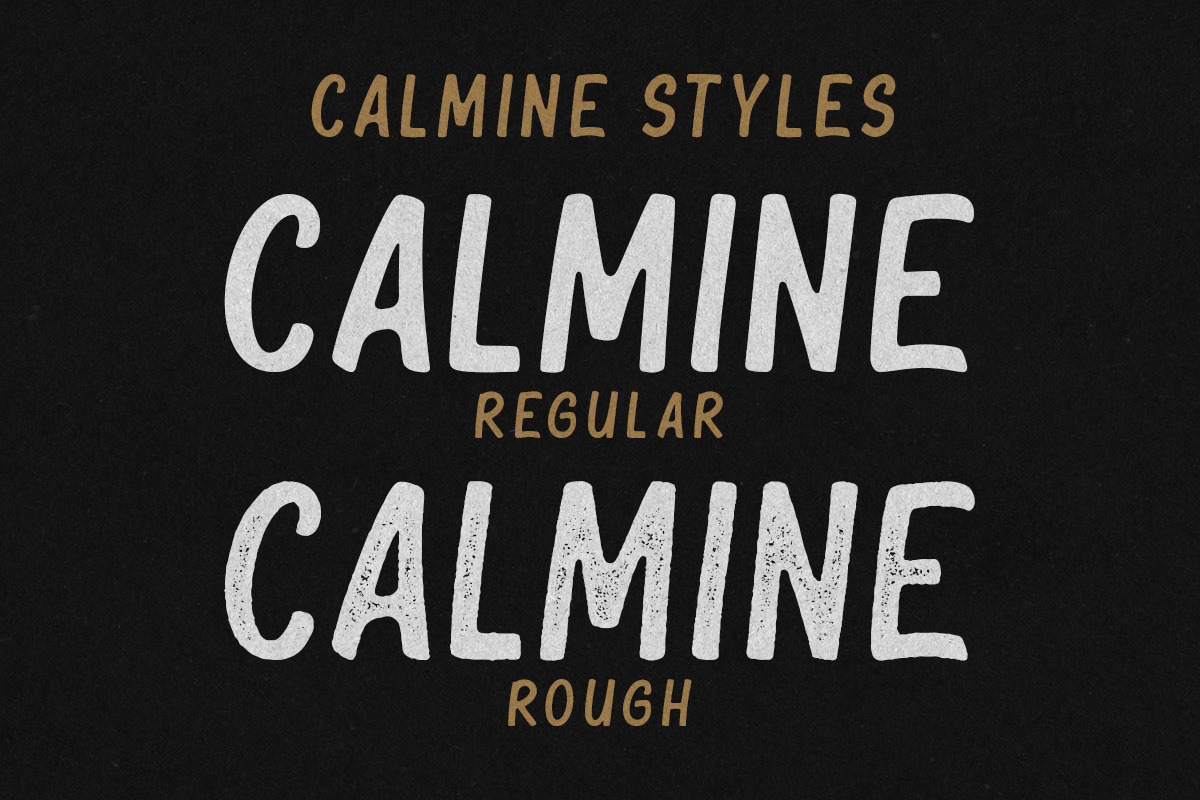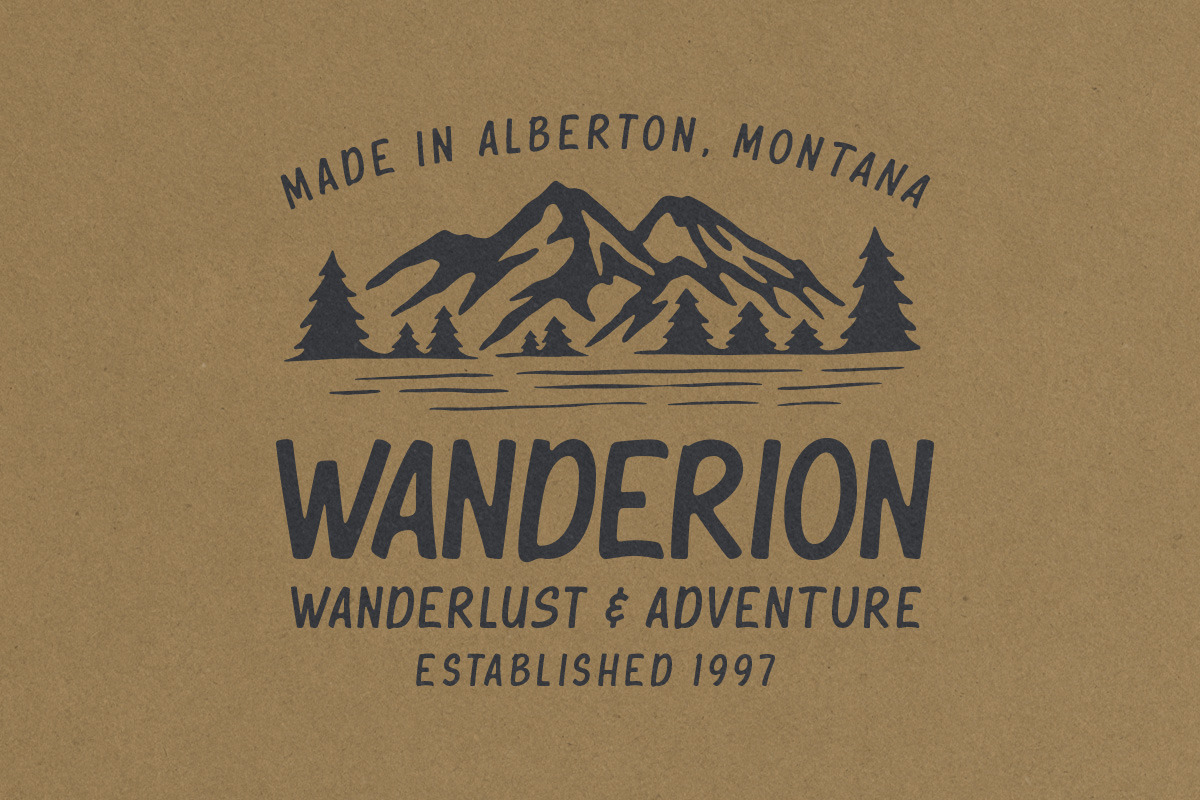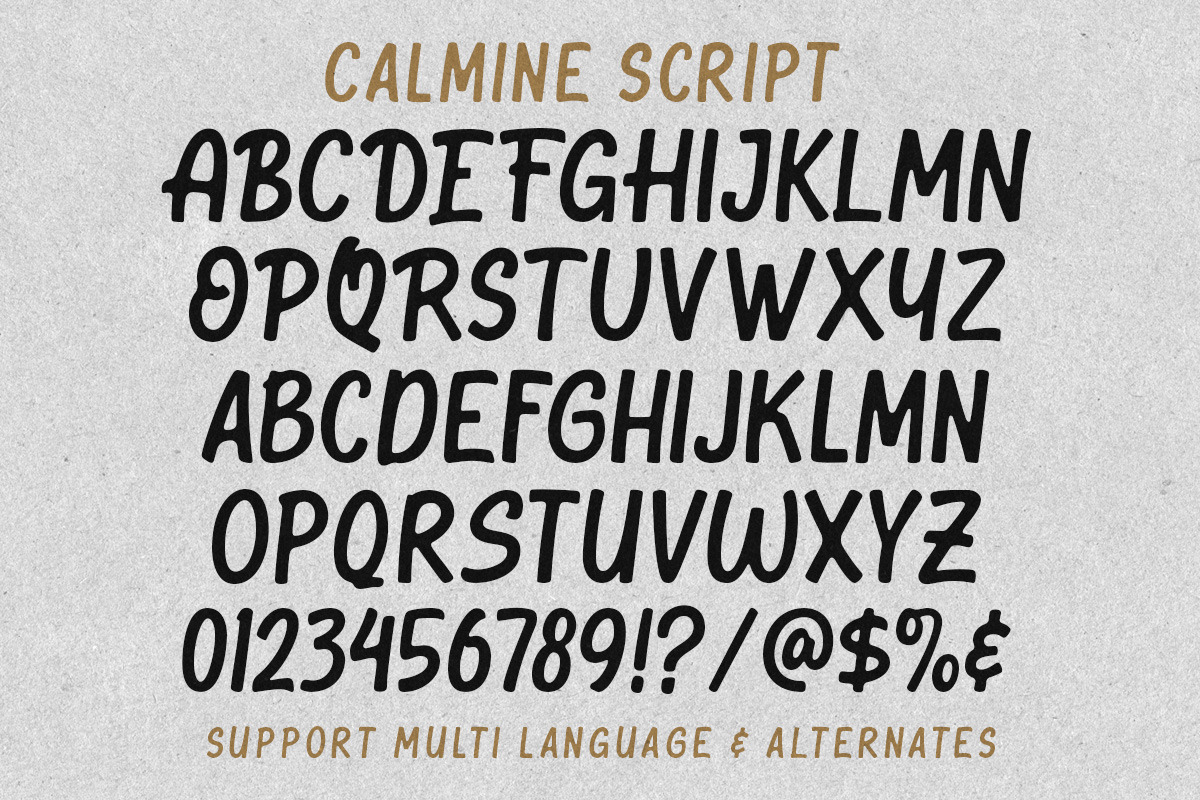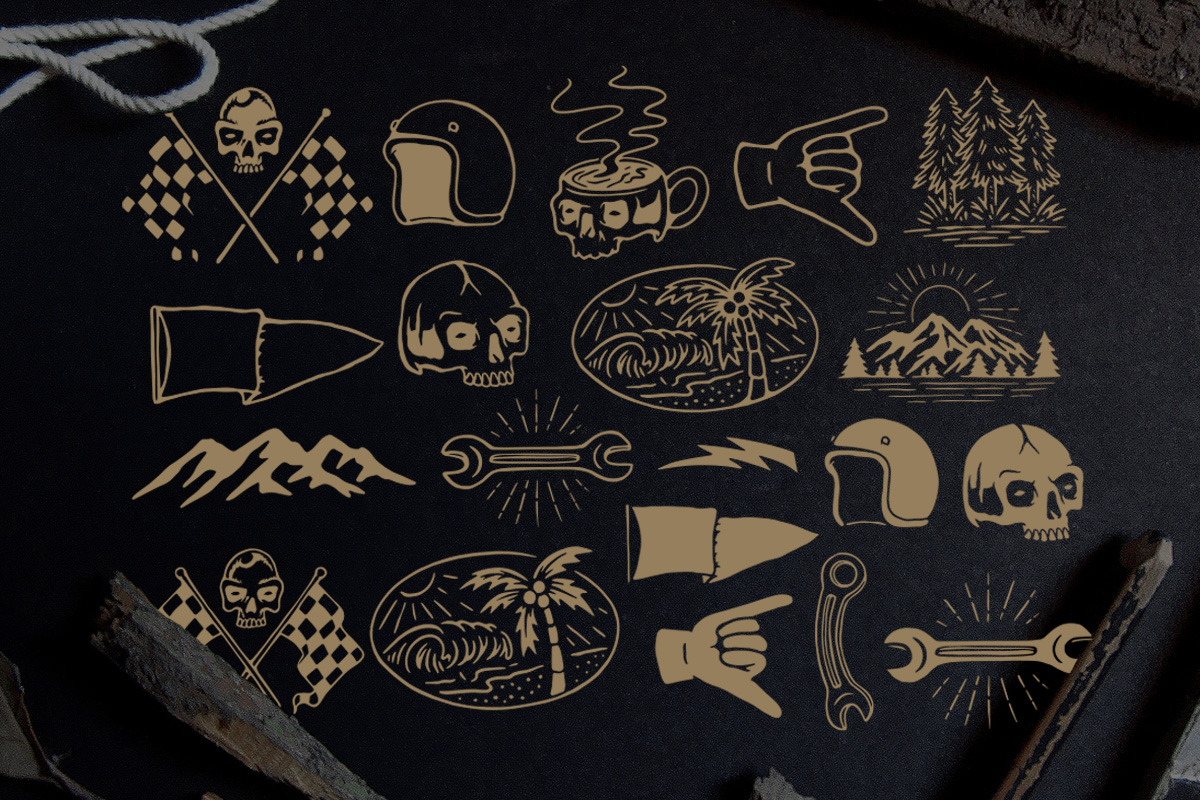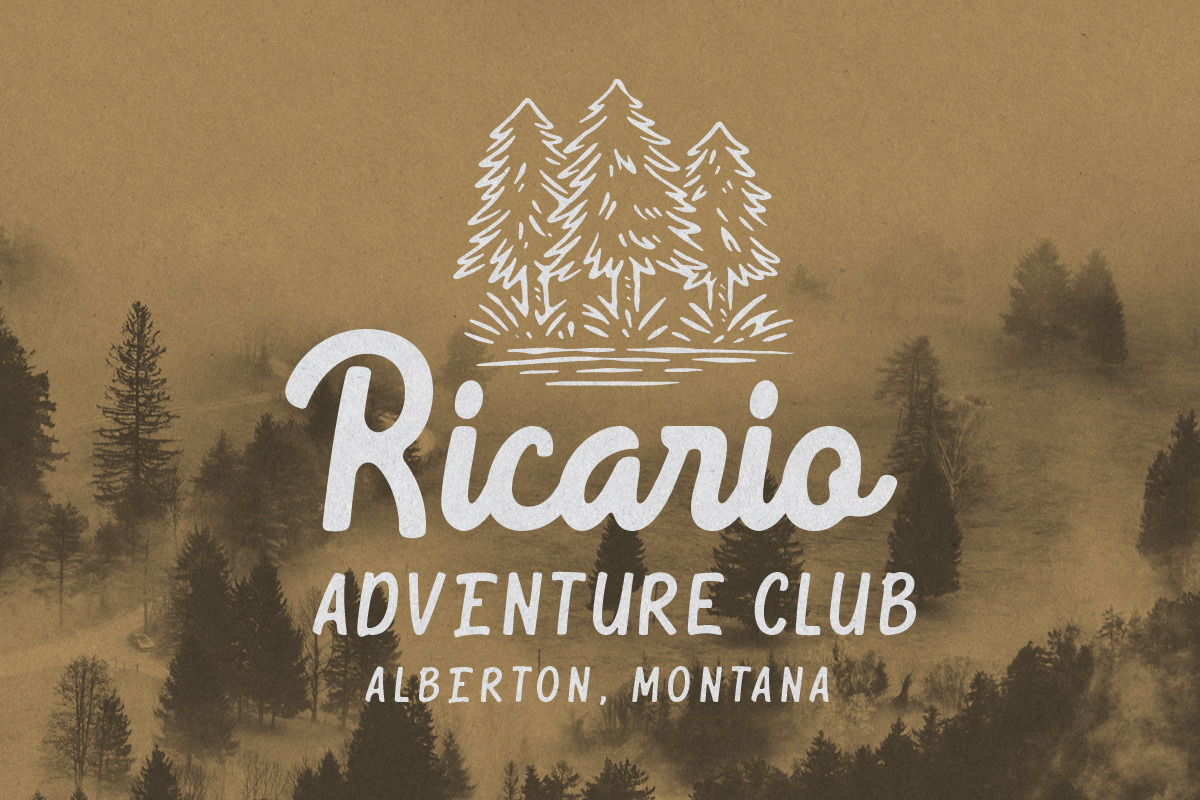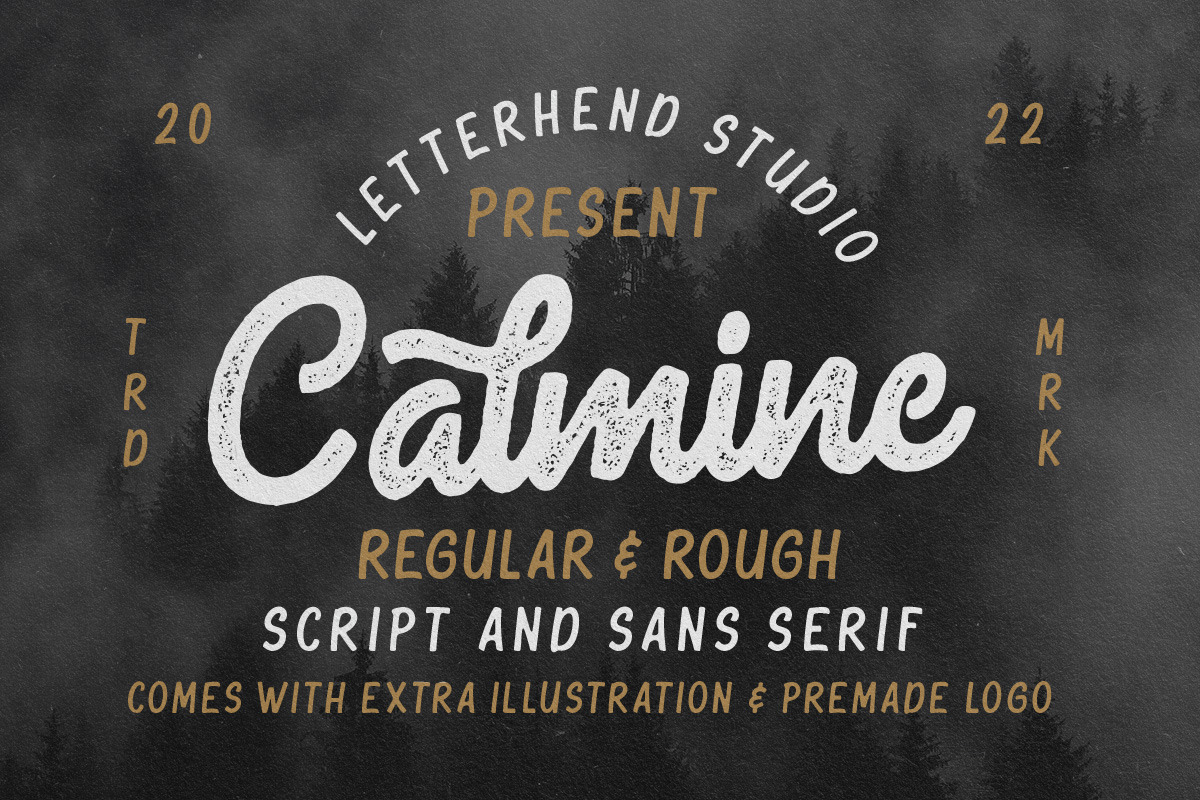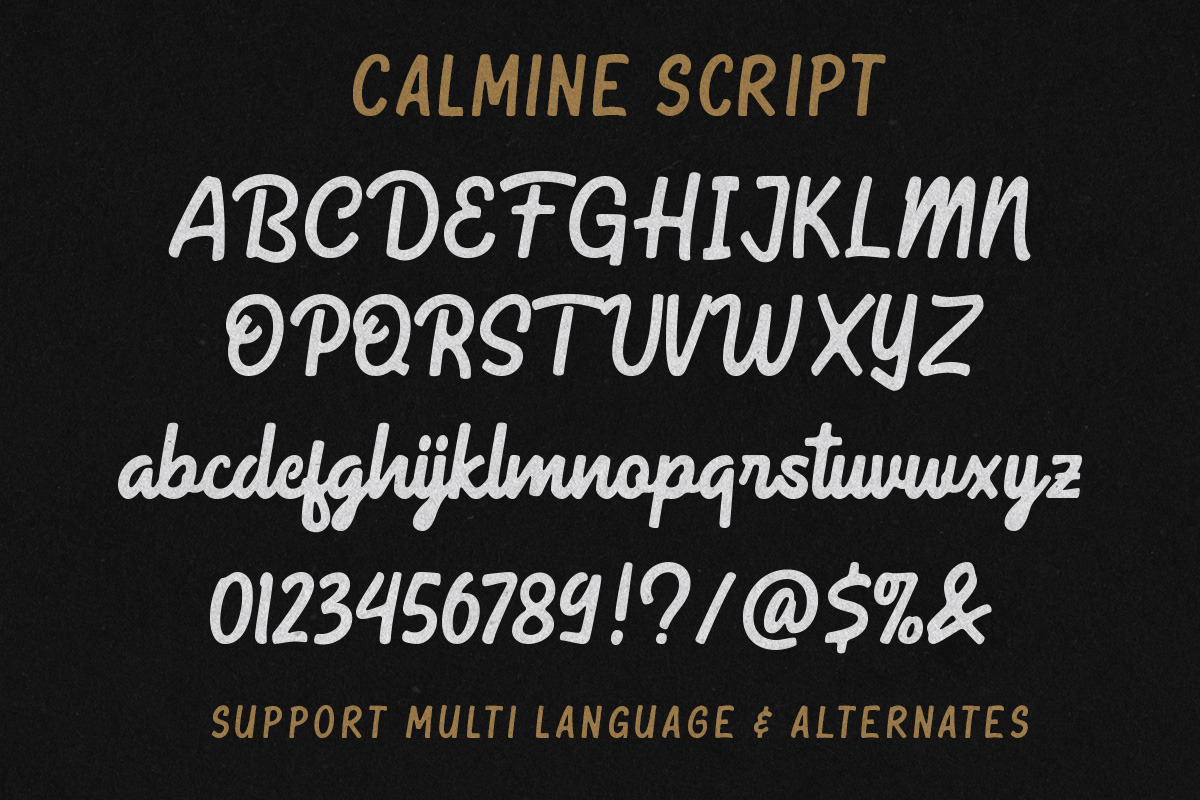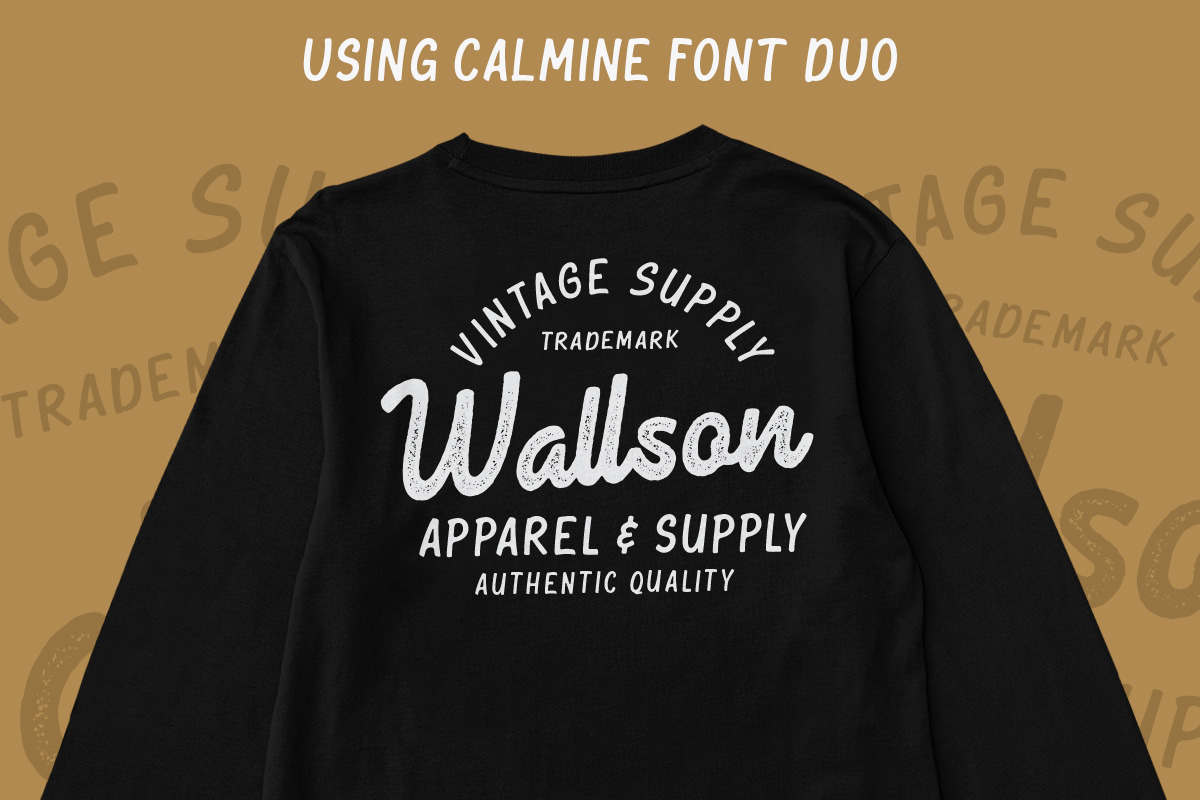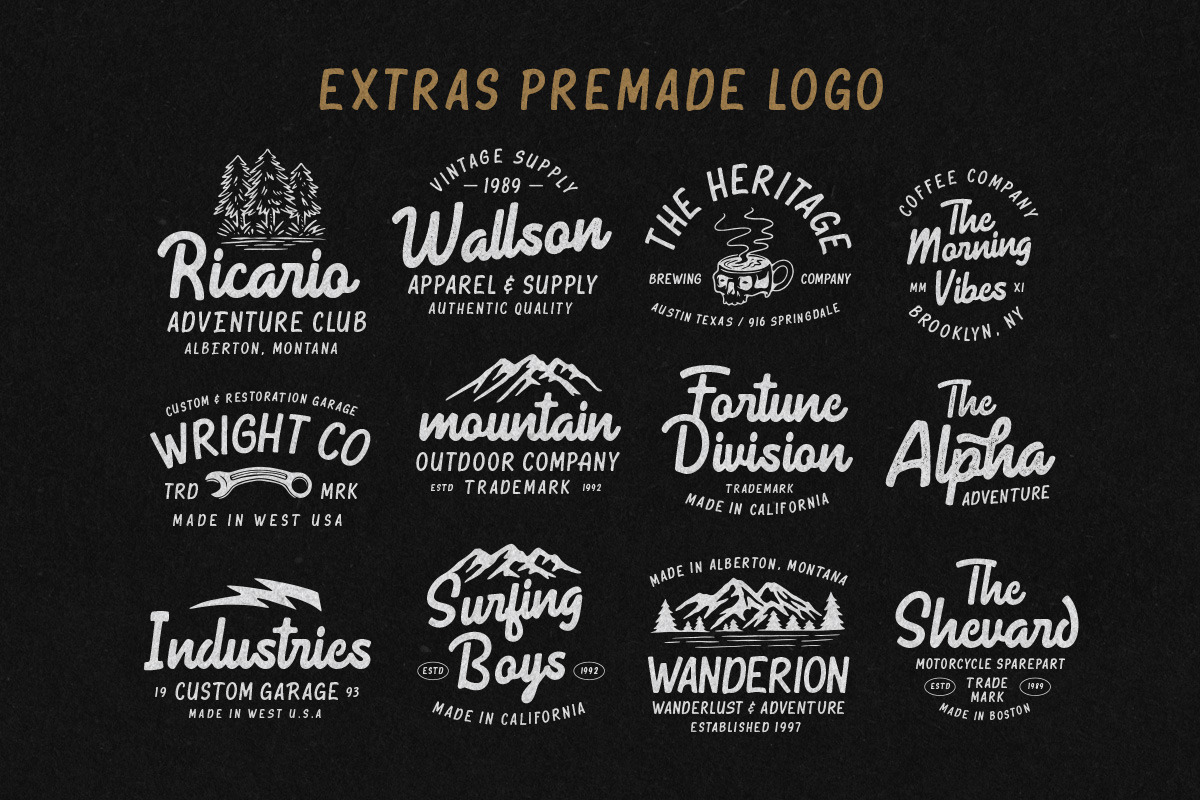
Calmine - Font Duo & Extras
Calmine is a font duo package contain a hand drawn bold script and sans serif which looks great to be paired especially for vintage and adventure theme! It also comes with extra illustration and premade logo! This font duo is purposely made for headline, display or logotype, and signature which need a standout appearing. This font is also suitable to be applied especially in logo, and the other various formal forms such as invitations, labels, logos, magazines, books, greeting / wedding cards, packaging, fashion, make up, stationery, novels, labels or any type of advertising purpose.
- Calmine Script Regular and Rough
- Calmine Sans Regular and Rough
- Illustration and premade logo
- alternates & ligatures